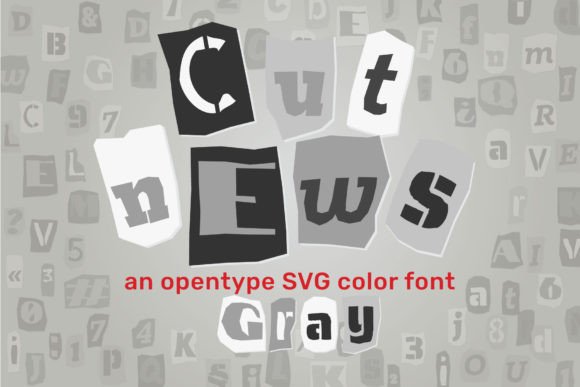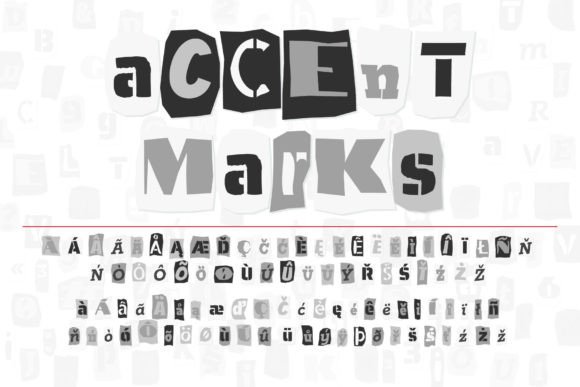
Cut News Gray Font
Modern display grotesque sans-serif font. Alphabet in cut-out magazine letter collage style. You can use this font for your design, quotes prints on t-shirts, modern typography posters, children’s posters lovely cards, and… others.